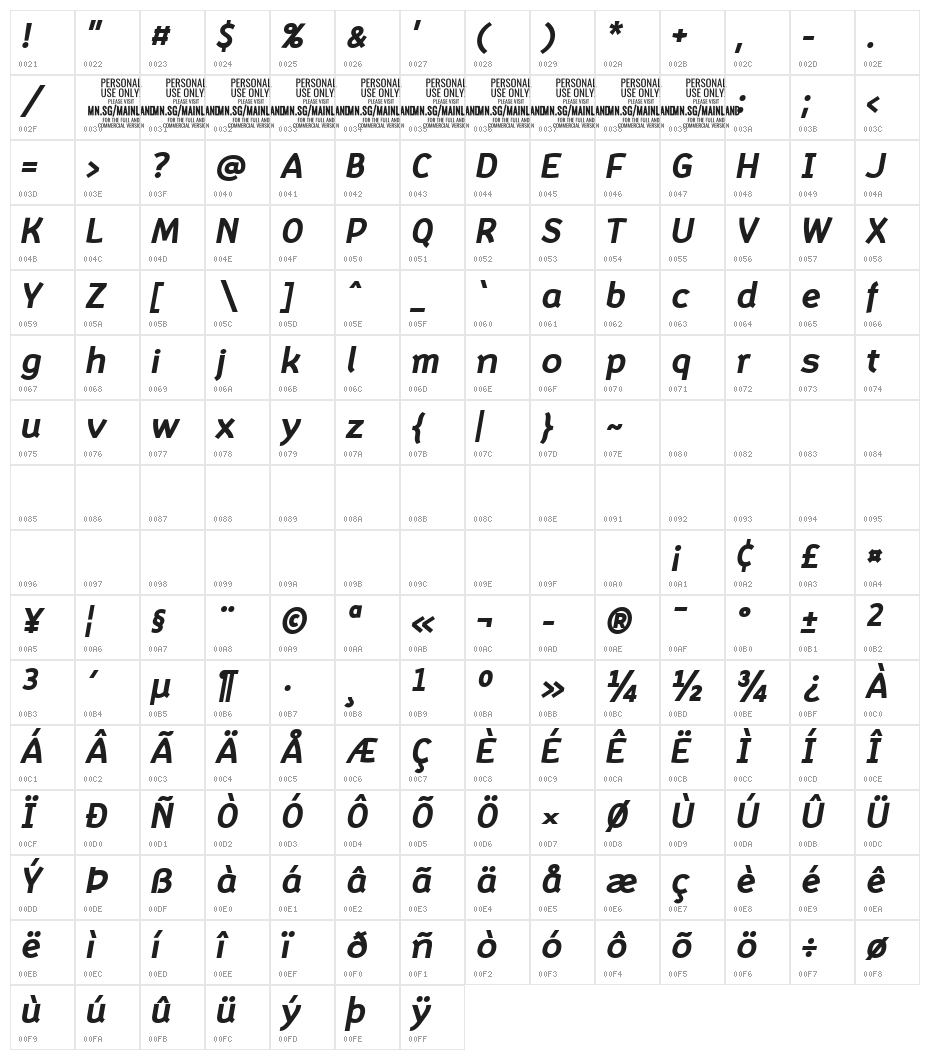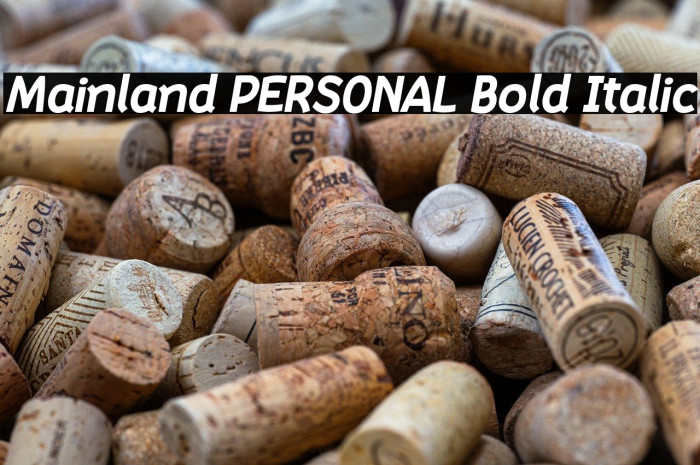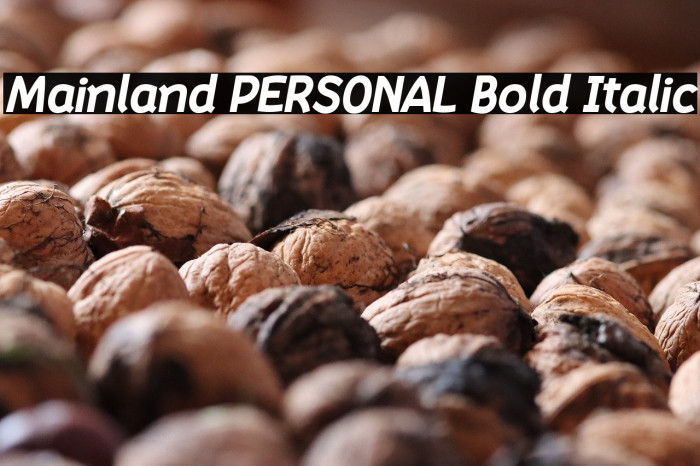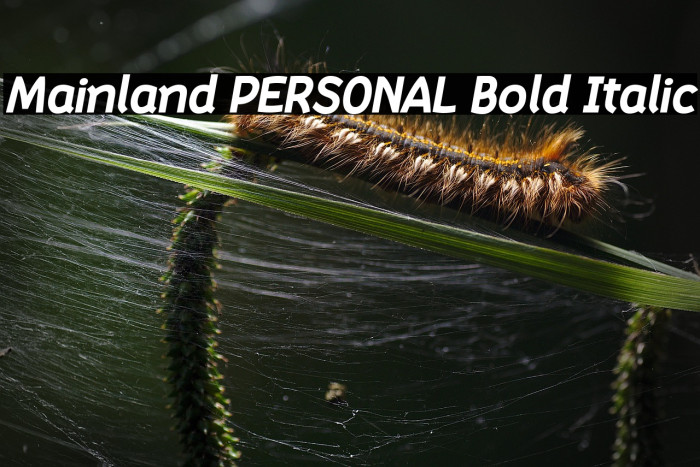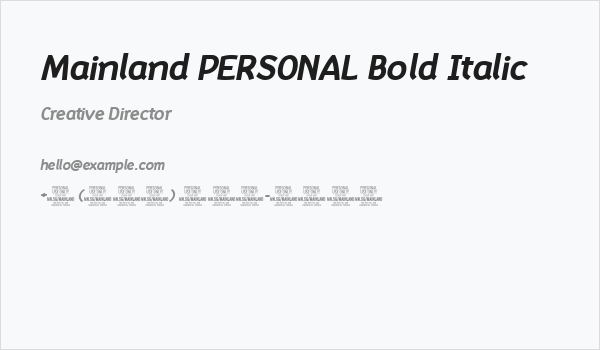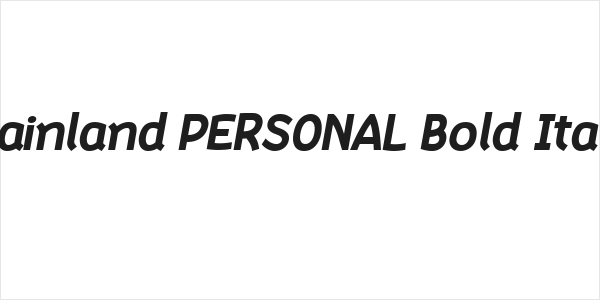
Mainland PERSONAL Bold Italic Font
Mainland PERSONAL Bold Italic Description
This font features a bold and italic style, characterized by its strong, slanted letterforms that convey a sense of movement and dynamism. The uppercase and lowercase letters maintain a consistent weight, providing a cohesive look across all characters. The numerals and special characters are designed to match the boldness and slant of the alphabet, ensuring uniformity. The font's overall appearance is modern and assertive, making it suitable for impactful design projects.
| Proposed Projects | Ideal for branding, advertising, headlines, and any project requiring a strong, modern typeface. |